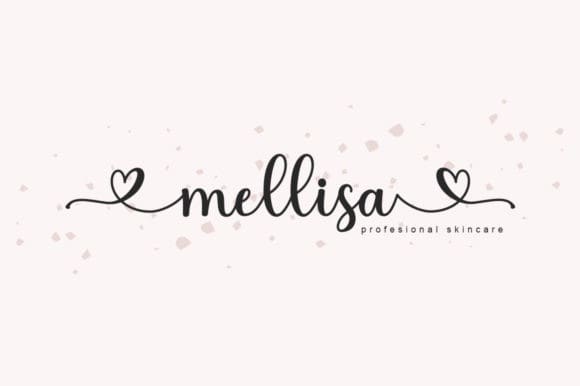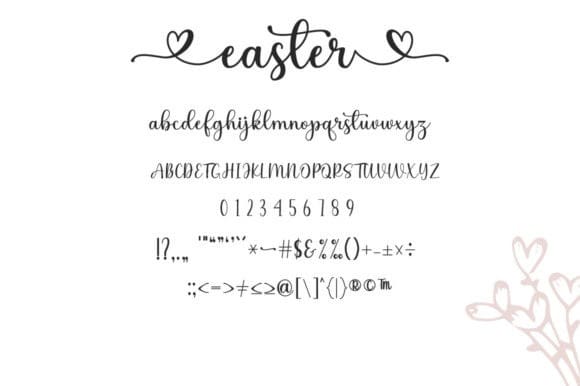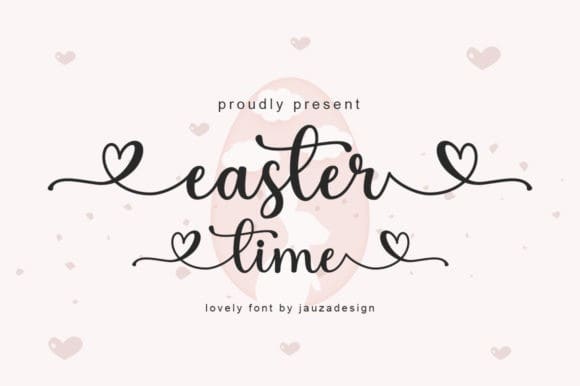
Easter Time Font
Easter Time Font is a thin lettered and delicate script font. It is PUA encoded which means you can access all of the amazing glyphs and ligatures with ease!